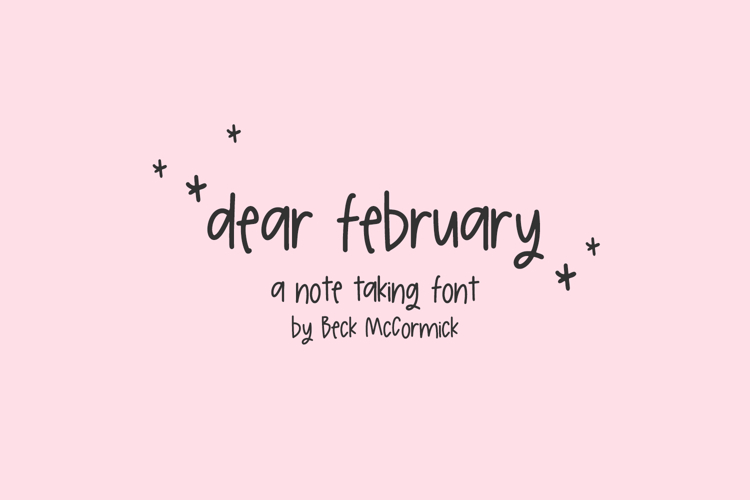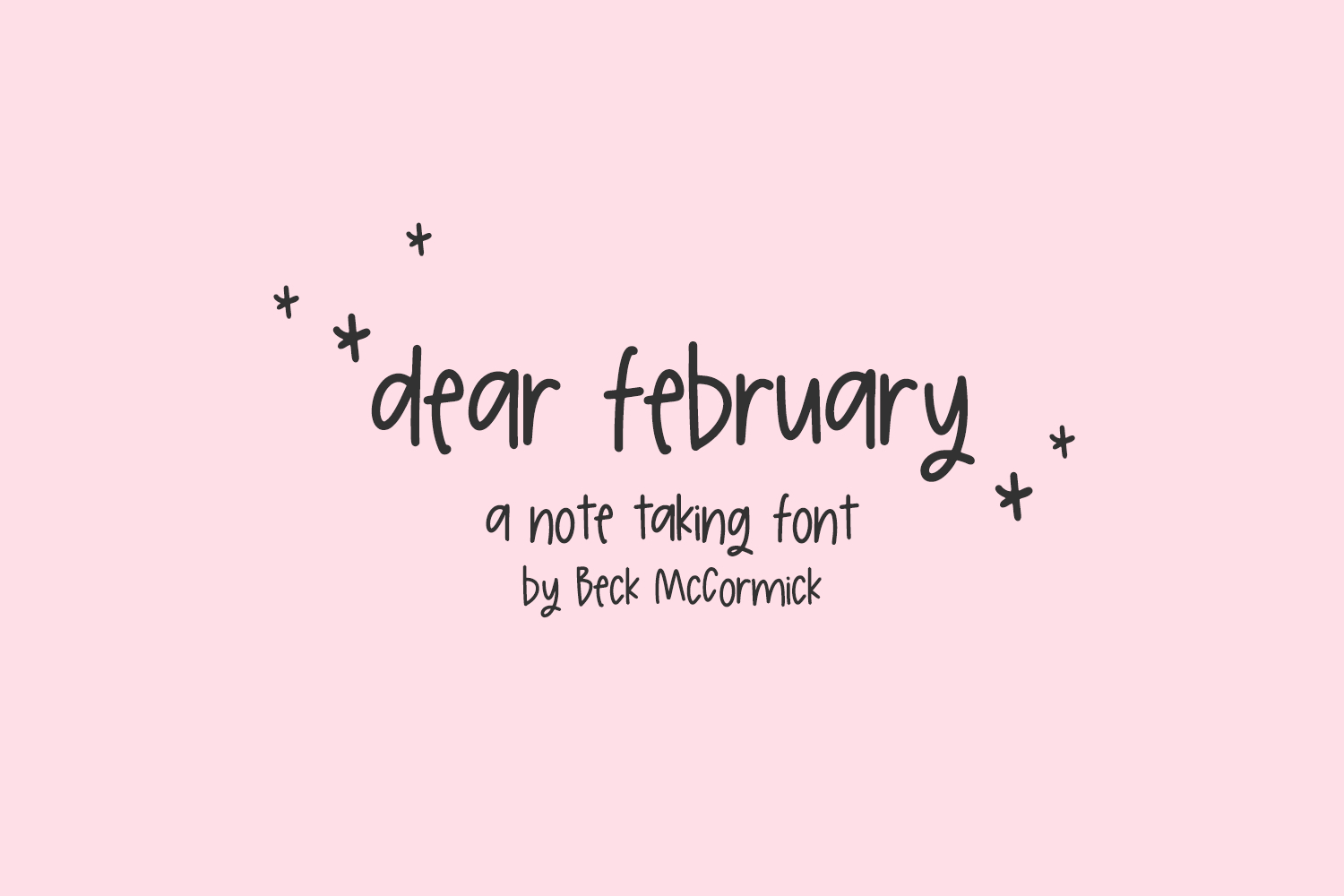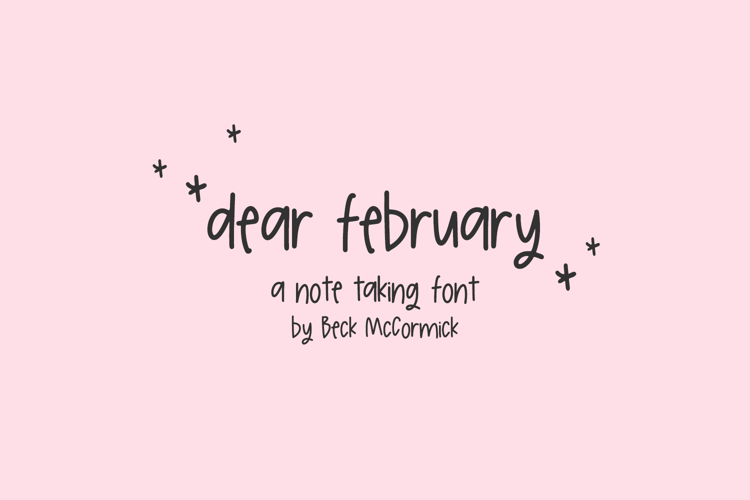
Dear February Sans
Introducing Dear February, a cute handwriting font designed for GoodNotes, digital planning, or note taking apps. Dear February can also be used for other print design like magazines and flyers or printed marketing materials. This font can also be used for adorable logo design & branding items, digital marketing materials, and social media items!
Extensive Language Support:
Western European, Central European, South Eastern European, South American, Oceanian, Vietnamese, Esperanto